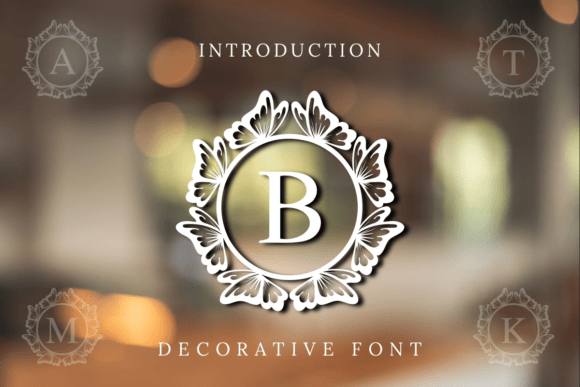
Introducing the Floral Butterfly Monogram Font: Elegance and Sophistication in Typography
The world of typography is vast and diverse, offering a multitude of fonts to suit various design needs. Among these, the Floral Butterfly Monogram Font stands out as a unique and elegant decorative typeface. This font is designed to bring a touch of sophistication and artistry to any project, making it perfect for those who seek to combine functionality with decorative beauty.
Key Features of the Floral Butterfly Monogram Font
- Elegant Decorative Design: The Floral Butterfly Monogram Font features intricate floral frames that beautifully encase each letter, giving it a refined and timeless design.
- Perfect for Personalized Monograms: With its unique combination of bold serif letters and delicate botanical details, this font is ideal for creating personalized monograms that exude luxury and sophistication.
- Versatile and Stylish: The Floral Butterfly Monogram Font is versatile and stylish, making it suitable for a wide range of applications, from wedding stationery and luxury branding to invitations, logos, and home décor items.
- Combining Functionality with Beauty: This font is designed to bring a touch of class and artistry to every design, making it perfect for those who want to combine functionality with decorative beauty.
Design Elements of the Floral Butterfly Monogram Font
The Floral Butterfly Monogram Font is characterized by its intricate floral frames that encase each letter. The bold serif letters provide a strong foundation, while the delicate botanical details add a touch of elegance and sophistication. The combination of these design elements creates a unique and ornamental flair that is perfect for a variety of design projects.
The font’s design is refined and timeless, making it suitable for both print and digital projects. The intricate floral frames and delicate botanical details are carefully crafted to provide a sophisticated and ornamental flair that elevates any design.
Usage Ideas for the Floral Butterfly Monogram Font
The Floral Butterfly Monogram Font is a versatile typeface that can be used in a variety of design projects. Here are some usage ideas to get you started:
- Wedding Stationery: Use the Floral Butterfly Monogram Font to create beautiful wedding stationery, including invitations, save-the-date cards, and thank-you notes.
- Luxury Branding: This font is perfect for luxury branding, providing a sophisticated and elegant touch to any brand identity.
- Personalized Monograms: Create stunning personalized monograms using the Floral Butterfly Monogram Font, perfect for gifts, stationery, or home décor items.
- Invitations: Use this font to create beautiful invitations for special occasions, such as baby showers, birthday parties, or anniversaries.
- Logos: The Floral Butterfly Monogram Font is suitable for creating elegant logos that exude sophistication and luxury.
- Home Décor Items: Use this font to create beautiful home décor items, such as wall art, throw pillows, or personalized blankets.
Benefits of Using the Floral Butterfly Monogram Font
The Floral Butterfly Monogram Font offers a range of benefits that make it an ideal choice for designers and crafters. Here are some of the key benefits:
- Unique and Elegant Design: The Floral Butterfly Monogram Font features a unique and elegant design that sets it apart from other typefaces.
- Versatile: This font is versatile and can be used in a variety of design projects, from print to digital.
- Sophisticated and Ornate: The font’s intricate floral frames and delicate botanical details provide a sophisticated and ornate flair that elevates any design.
- Easy to Use: The Floral Butterfly Monogram Font is easy to use and can be installed on your computer or used online.
Tips and Tricks for Using the Floral Butterfly Monogram Font
Here are some tips and tricks for using the Floral Butterfly Monogram Font:
- Use it Sparingly: Use the Floral Butterfly Monogram Font sparingly to create a bold statement or focal point in your design.
- Pair it with Simple Fonts: Pair the Floral Butterfly Monogram Font with simple fonts to create a striking contrast and add visual interest to your design.
- Experiment with Colors: Experiment with different colors and textures to add depth and dimension to your design.
- Pay Attention to Kerning: Pay attention to kerning and spacing to ensure that your text is readable and visually appealing.
The Floral Butterfly Monogram Font is a unique and elegant decorative typeface that is perfect for designers and crafters seeking to add a touch of sophistication and artistry to their projects. With its intricate floral frames and delicate botanical details, this font is ideal for creating personalized monograms, wedding stationery, luxury branding, invitations, logos, and home décor items. Its versatility, elegance, and ornate flair make it a valuable addition to any designer’s toolkit.